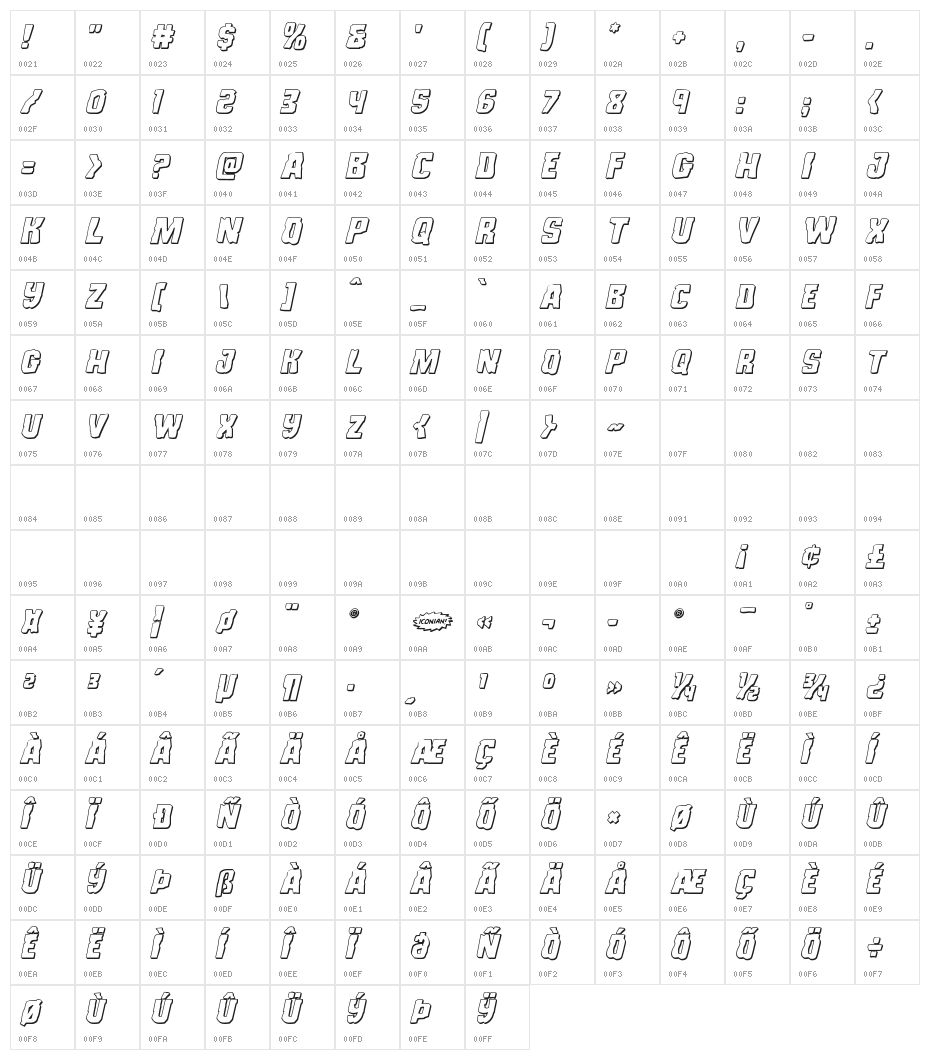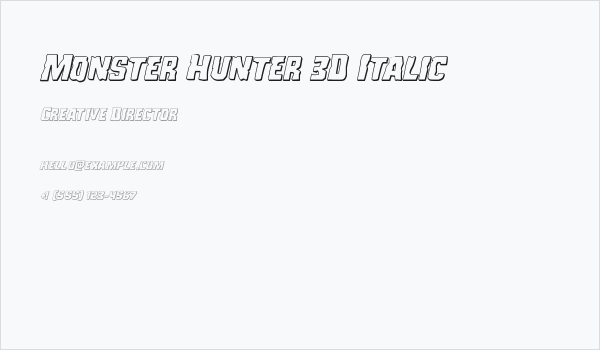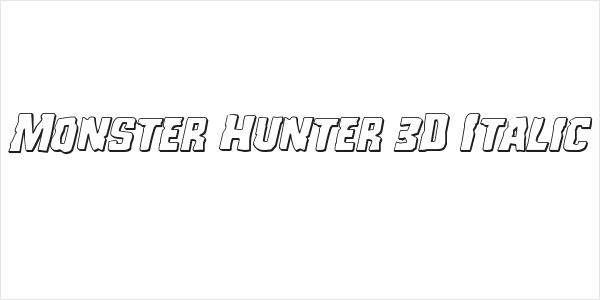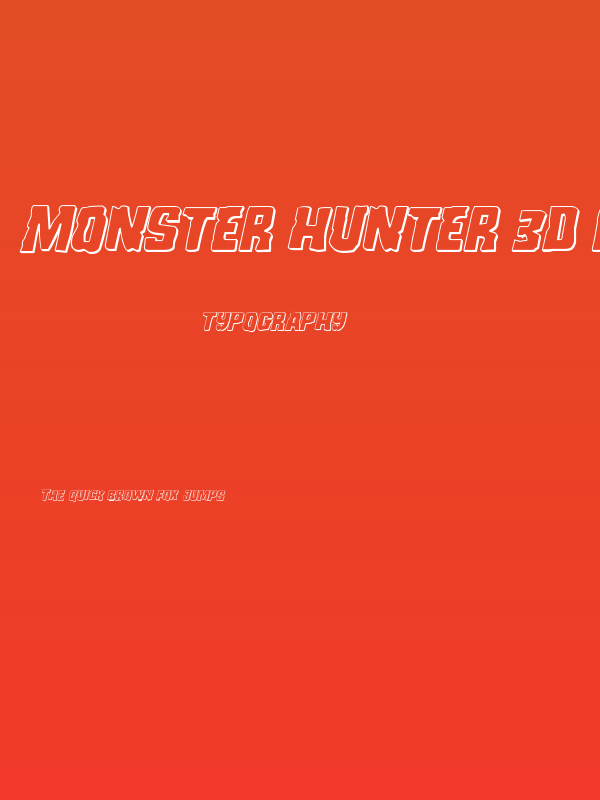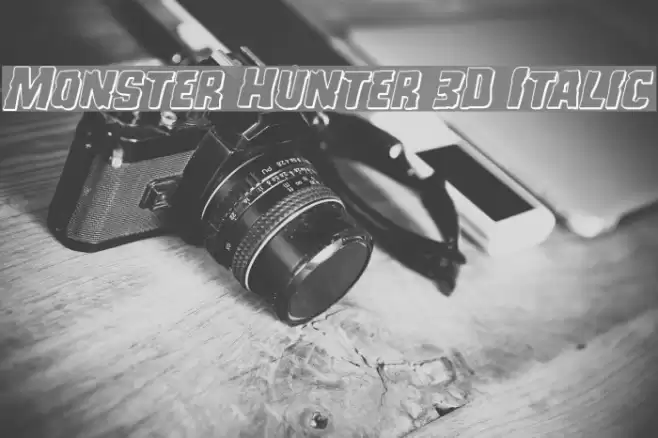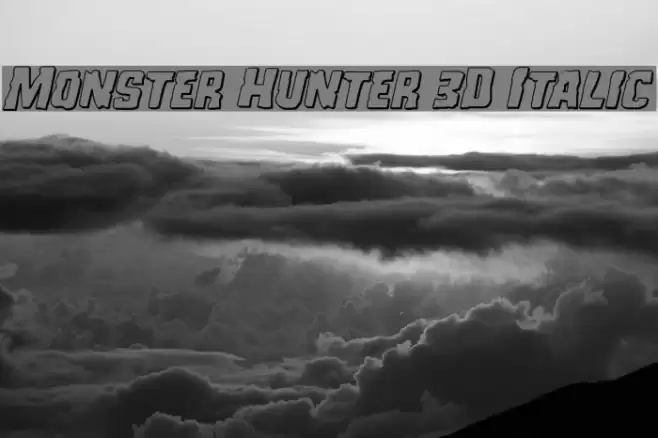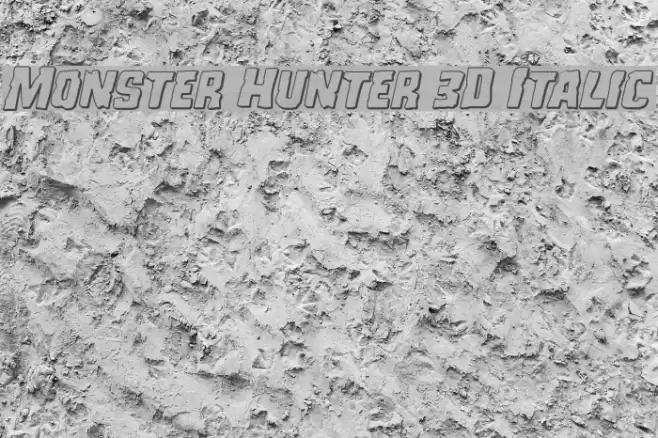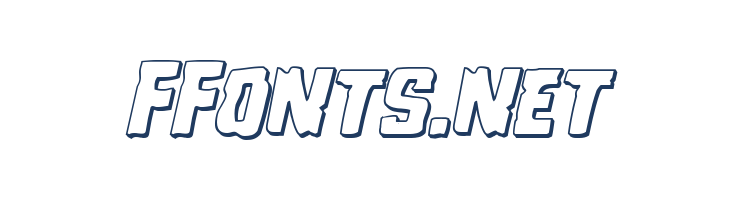
Monster Hunter 3D Italic Font
| Vorgeschlagene Projekte | Perfect for video game titles, movie posters, sports team logos, and any project needing a bold, adventurous look. |